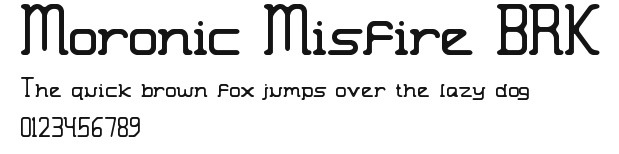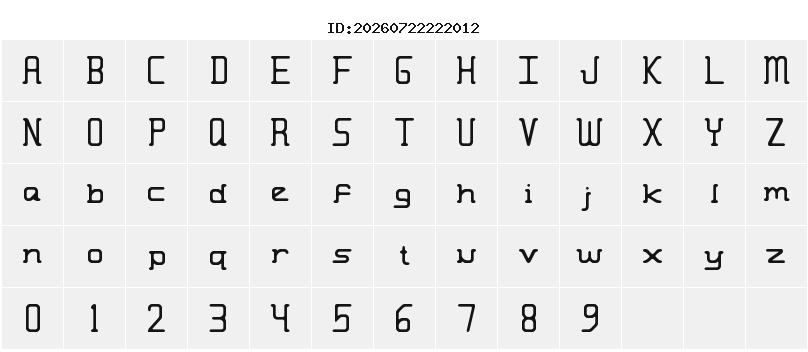
Moronic Misfire BRK Preview
• Font Name: Moronic Misfire BRK
• Full Font Name: Moronic Misfire BRK
• Designer: ÆNIGMA FONTS - Brian Kent
• Manufacturer: ÆNIGMA FONTS
About Moronic Misfire BRK.ttf
Moronic Misfire BRK.ttf is a modern, elegant sans-serif font designed for ultimate readability and visual harmony. Perfect for branding, headlines, web design, and print materials.